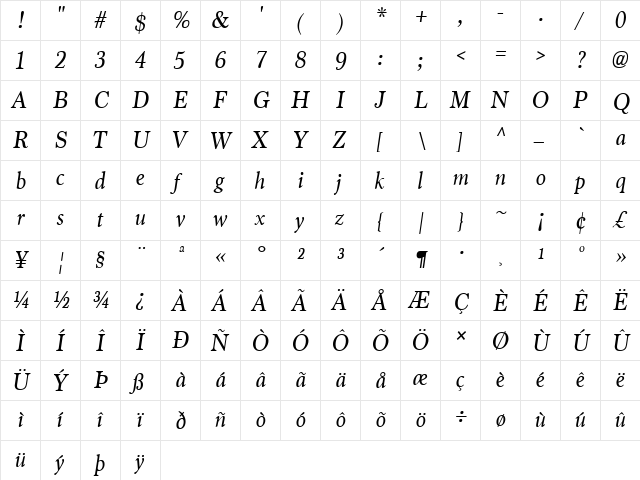
Marion Italic Font Preview
Marion Italic
Design Context for Marion Typeface
Marion offers clean, dependable letterforms without strong stylistic allegiance, making it a practical choice for designers who need flexibility. The slanted form adds forward momentum and visual energy.
Pro Tip: Try Marion for annotation and caption copy alongside an upright companion — the contrast in angle creates a dynamic but ordered typographic system.